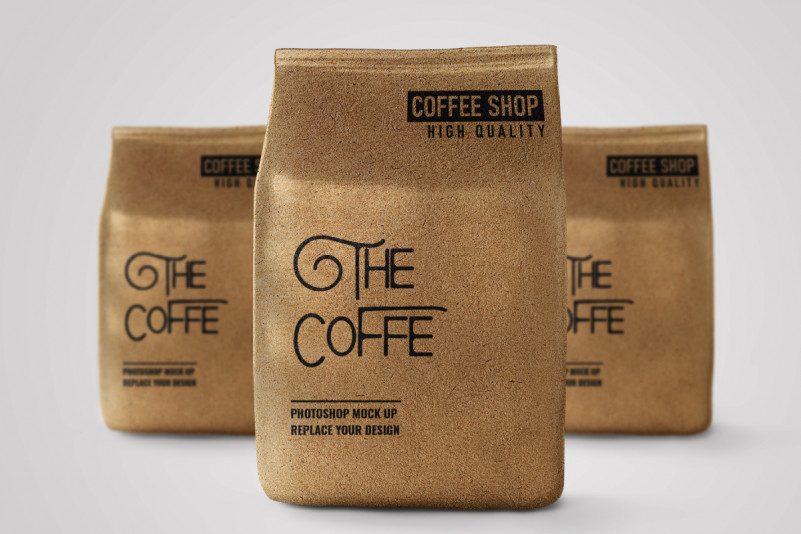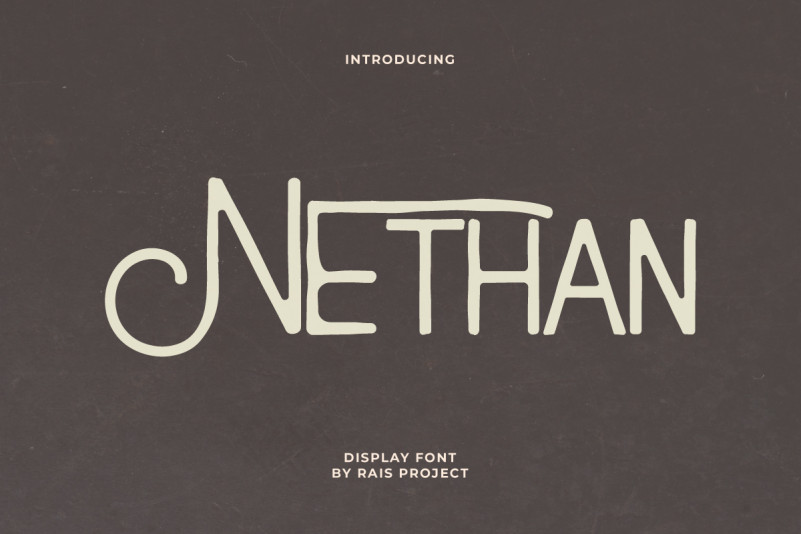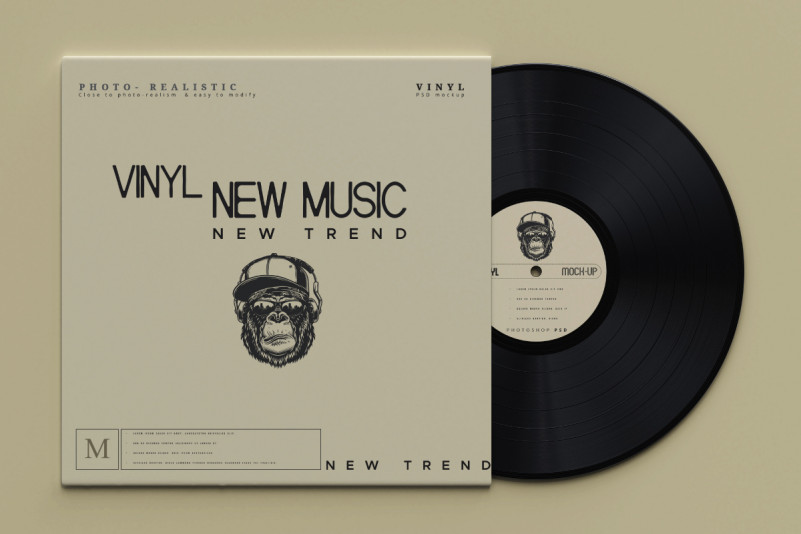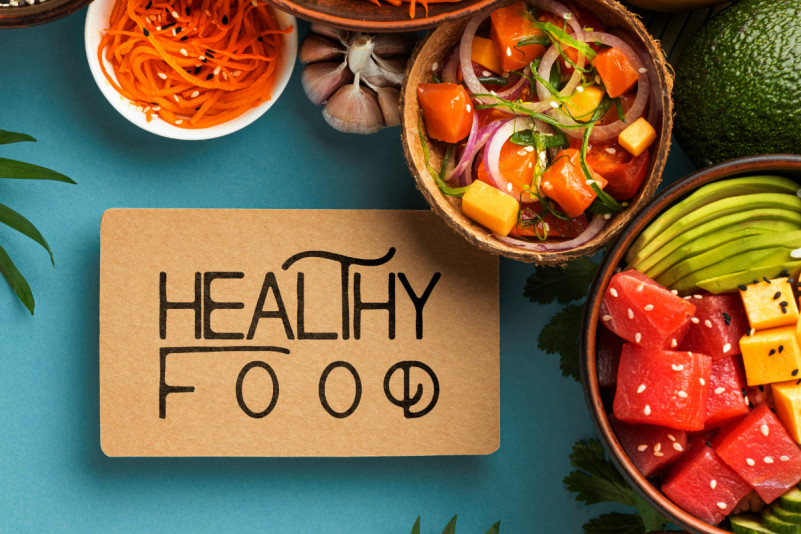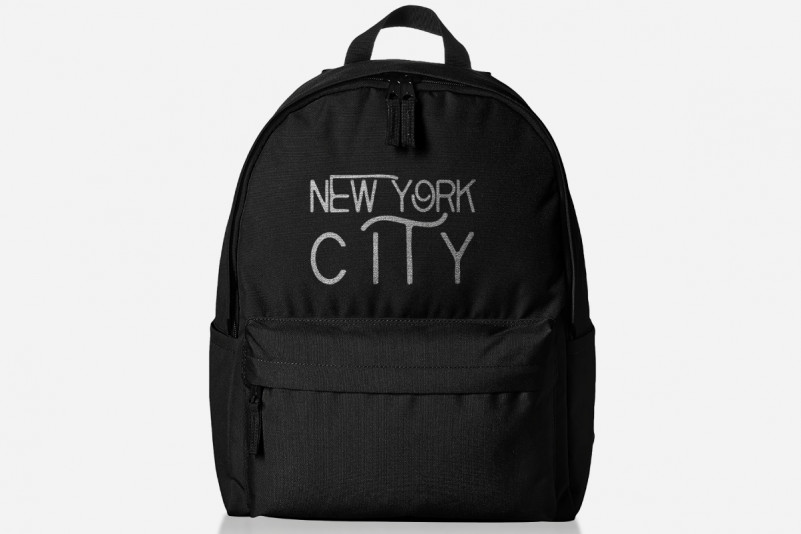
Nethan Font
Nethan Display Font
This is a vintage display Sans Serif unique font family, designed by RaisProject. The font was handcrafted for any your special projects including : brandings, promotion, events, games, advertising, magazine, signage, invitation, stationery, social media posts, label, or and any projects that need unique style. The industries for this font is Events, Games, Magazine, Music, Movies, Cafe, Restaurant etc